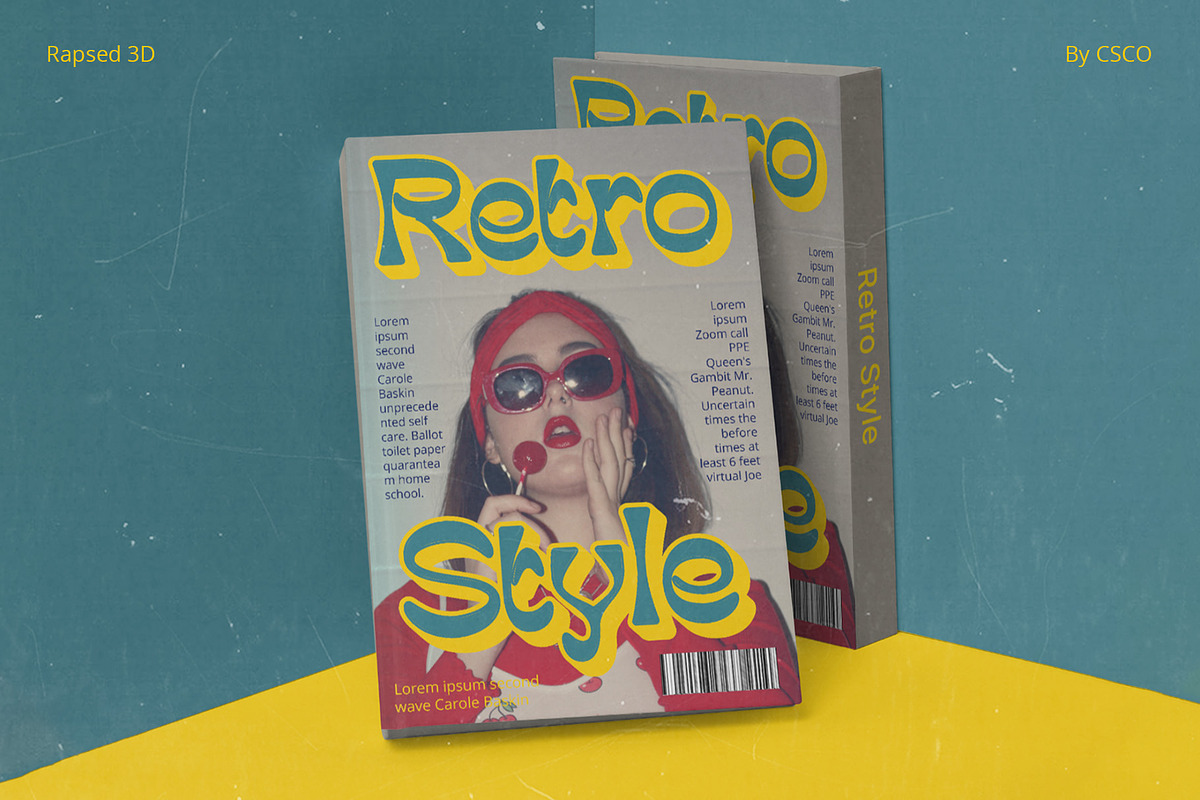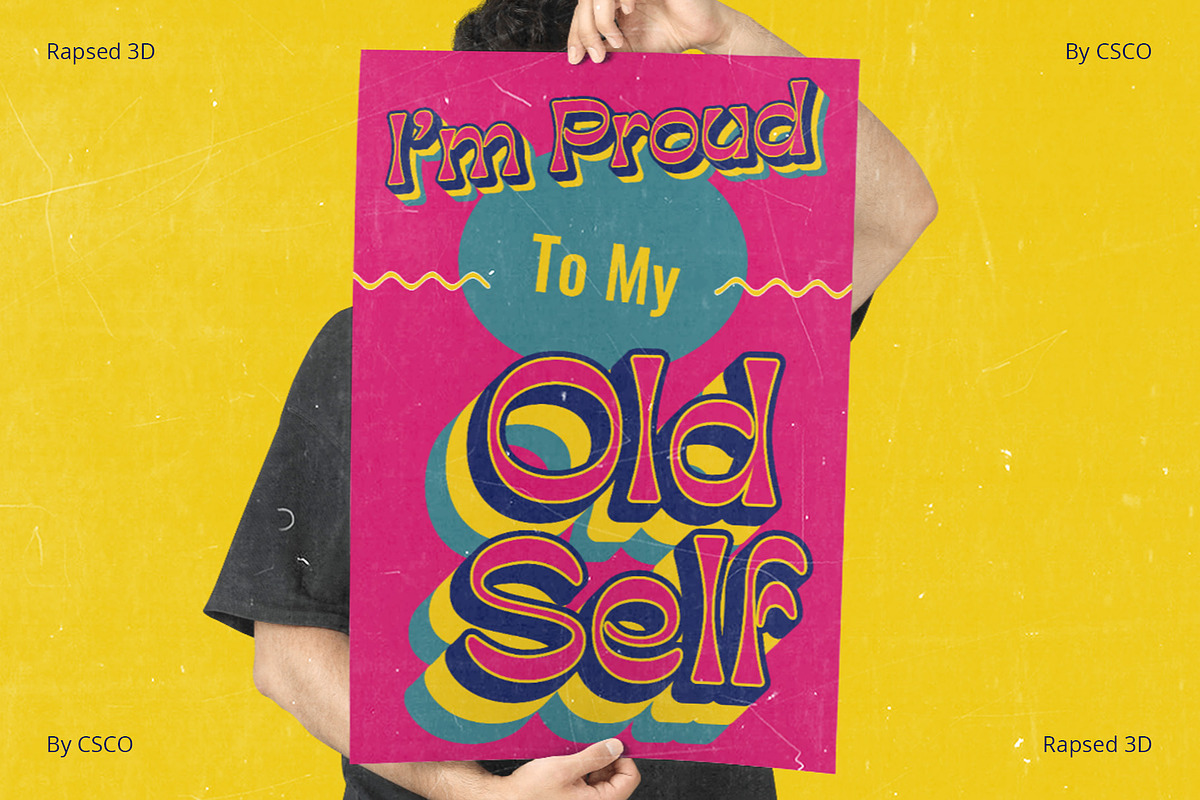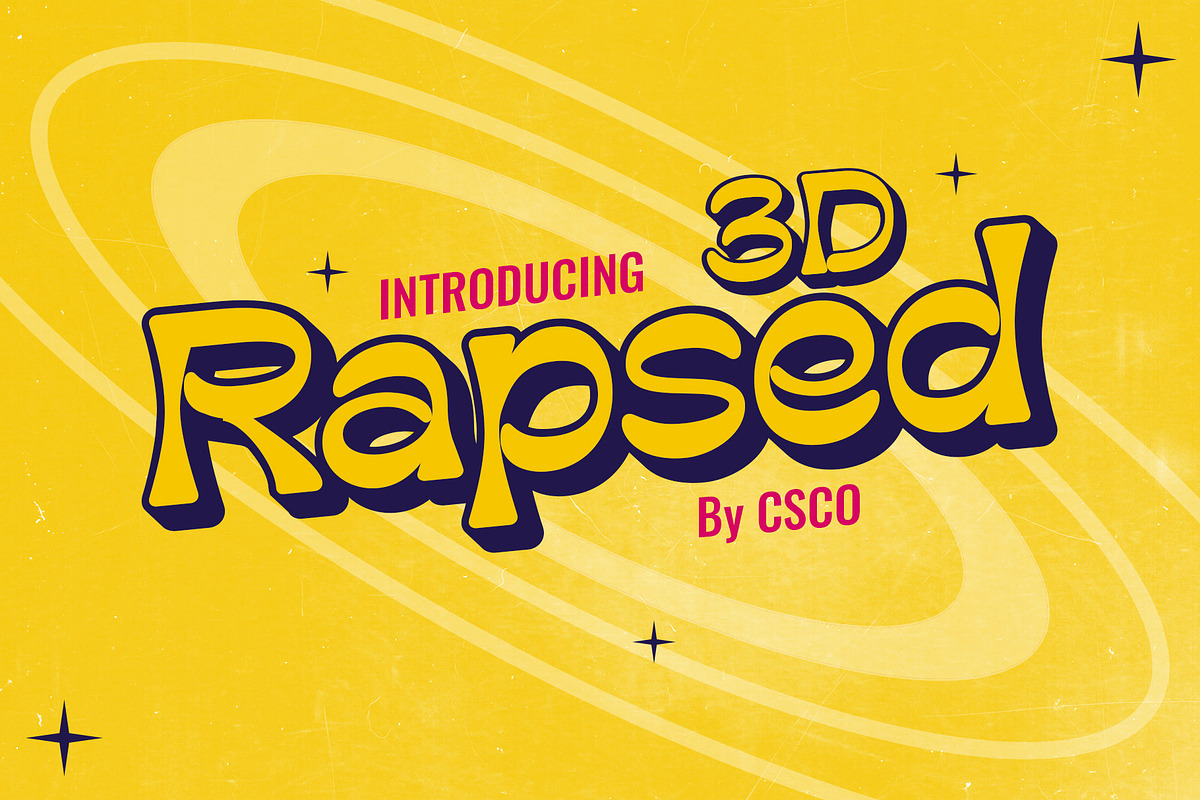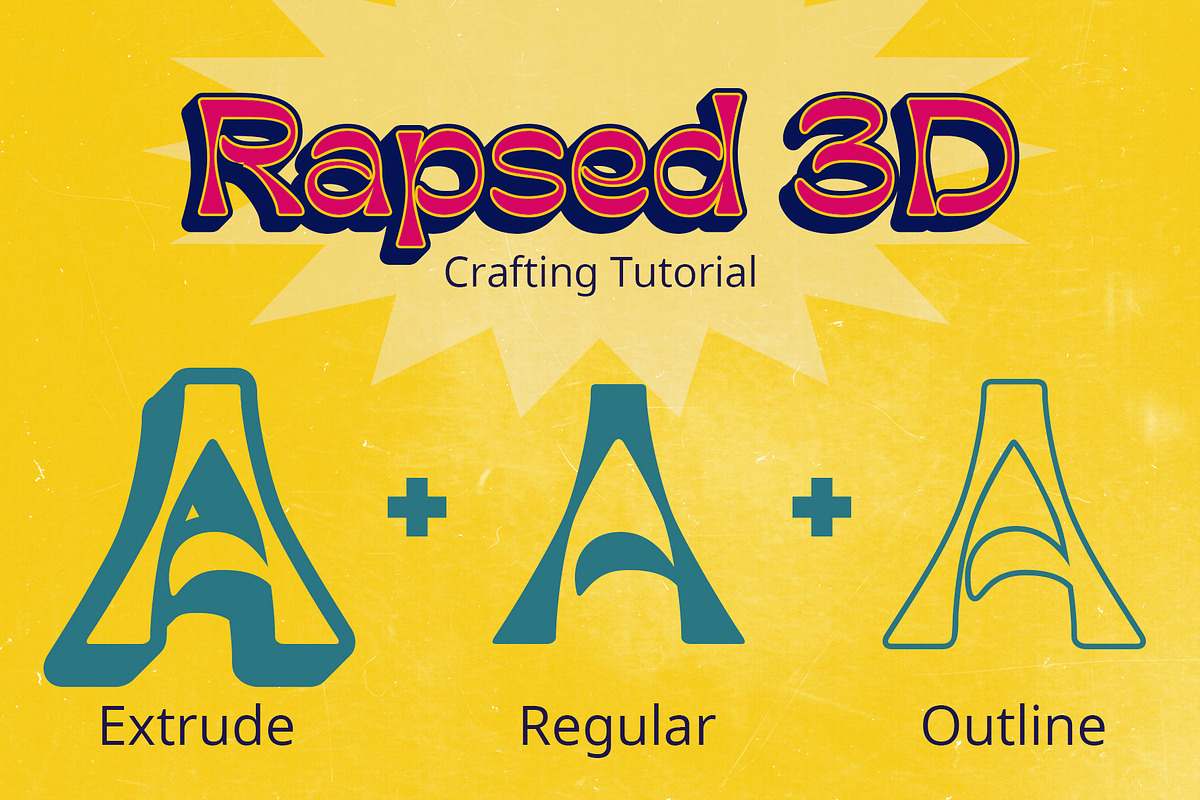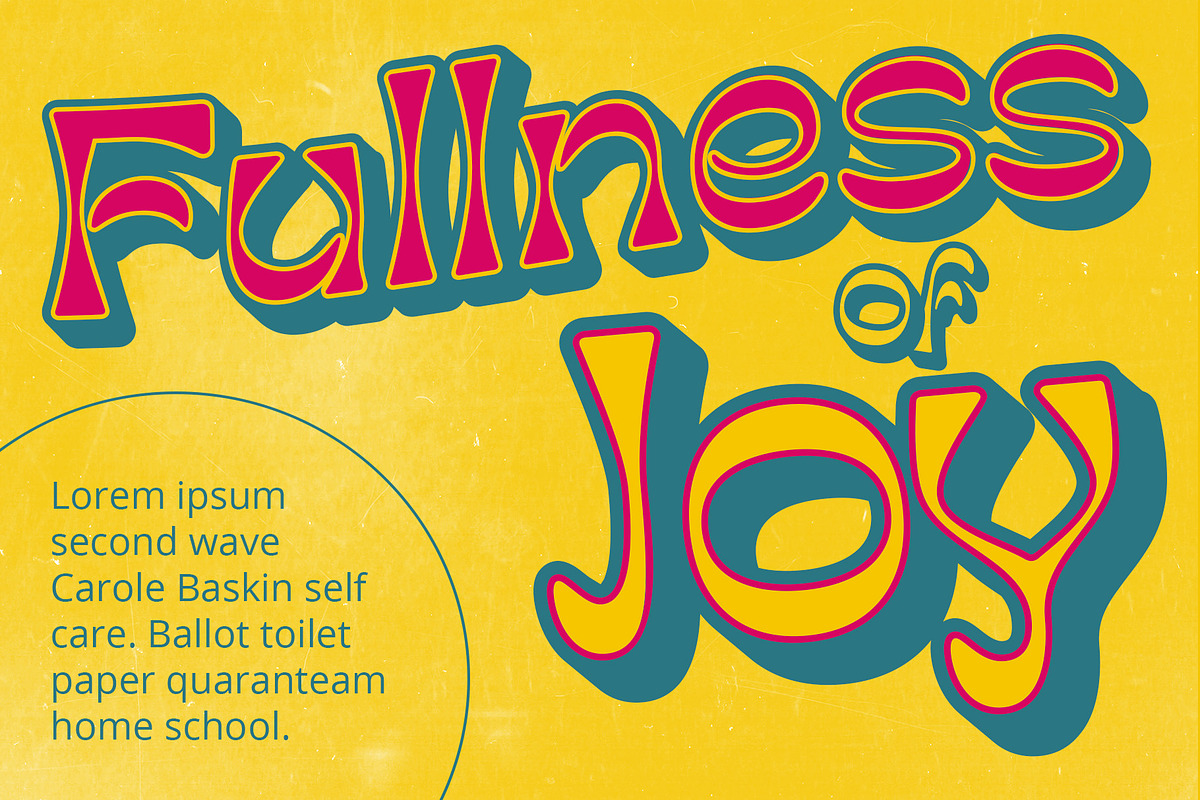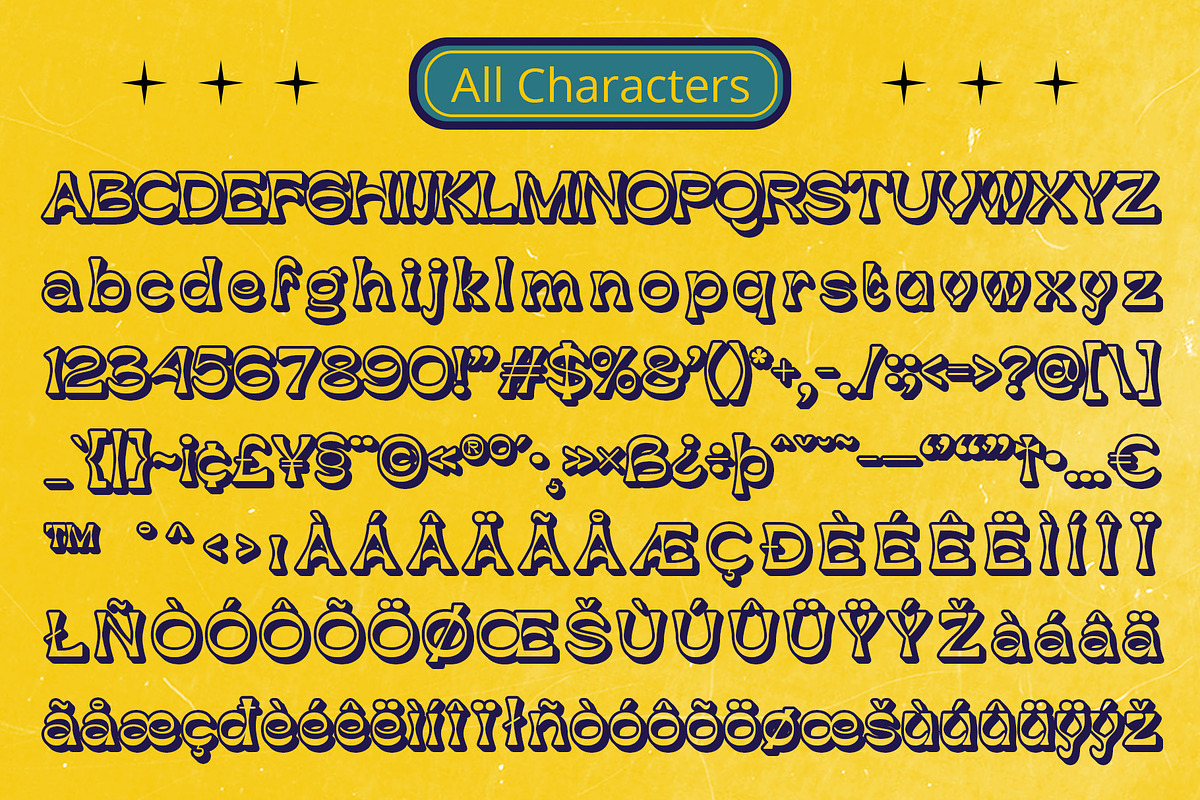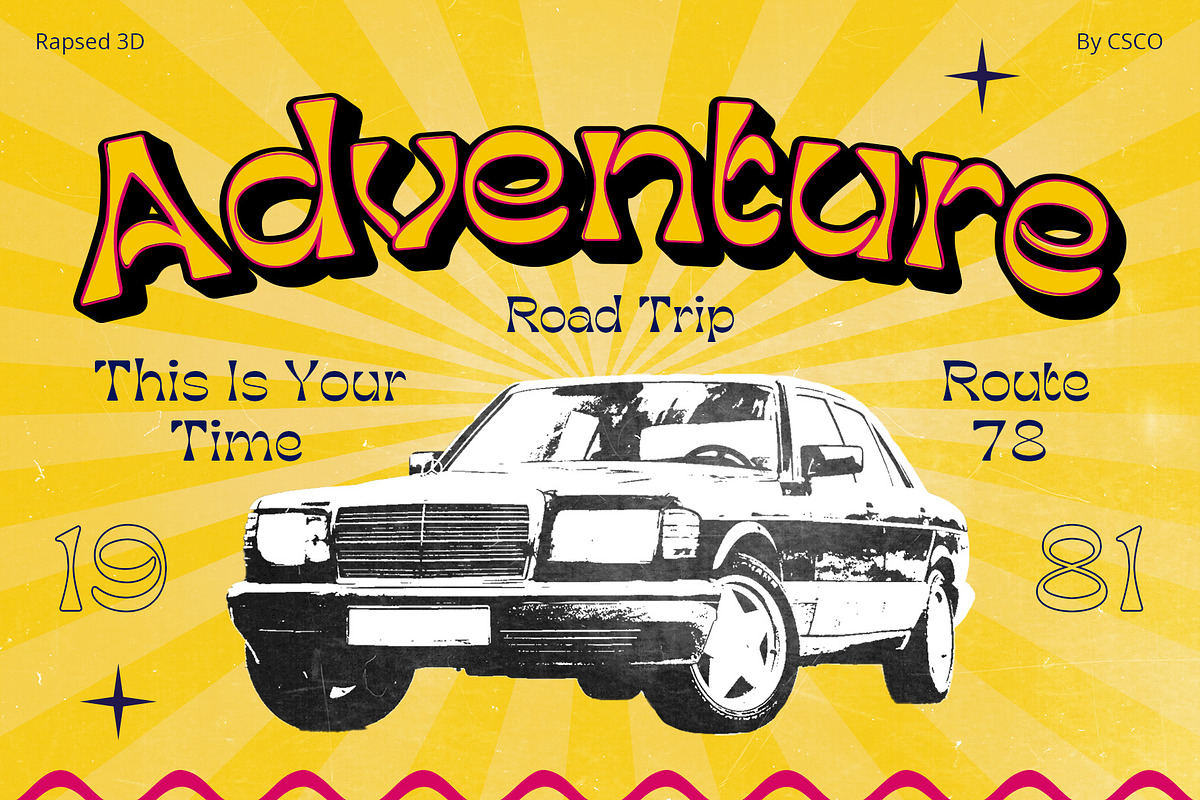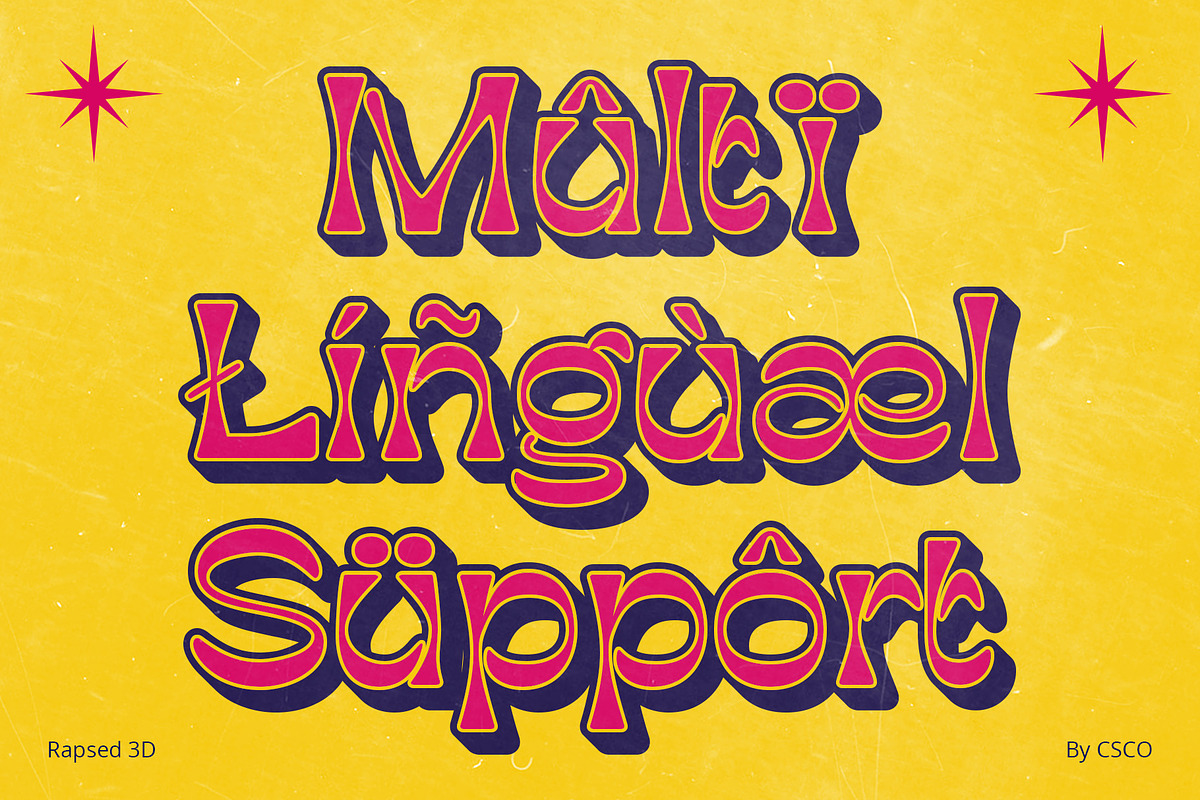
Rapsed 3D
Rapsed 3D: A Nostalgic Journey to the 90s
Nostalgic Vibes Rapsed 3D, a sans serif display font, effortlessly channels the retro vibes of the 90s, invoking a sense of nostalgia in every character.
Dimensional Throwback Taking a cue from the era of pixels and grunge, this font incorporates an extrude effect, casting each letter into the realms of the third dimension.
Outline Chic But it doesn’t stop there; Rapsed 3D comes adorned with a sleek outline that not only enhances its 90s aesthetic but also adds a touch of contemporary chic.
Versatility Reloaded Far beyond its vintage allure, Rapsed 3D proves its versatility, seamlessly adapting to various design needs, from posters to web banners, giving each project a dose of dimensional charm.
Conclusion Rapsed 3D isn’t just a font; it’s a time machine, transporting your designs back to the iconic 90s with a modern twist. Elevate your creative projects with this 3D retro masterpiece, blending nostalgia with contemporary flair.